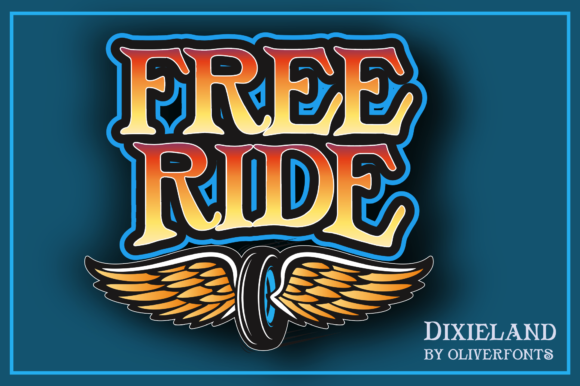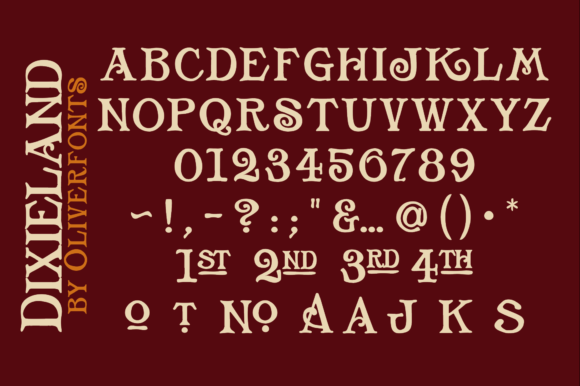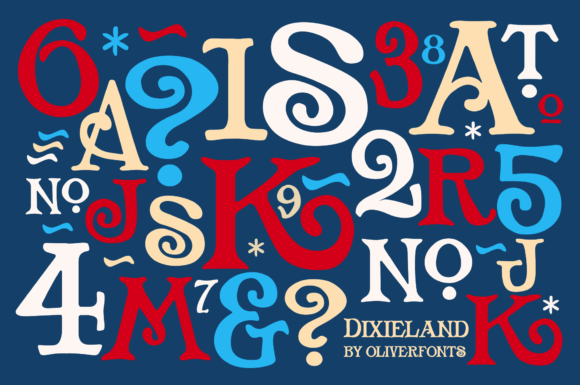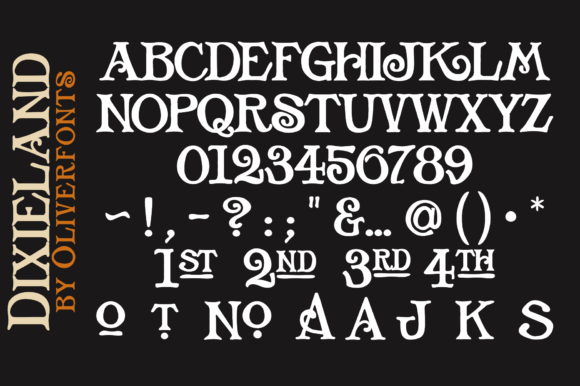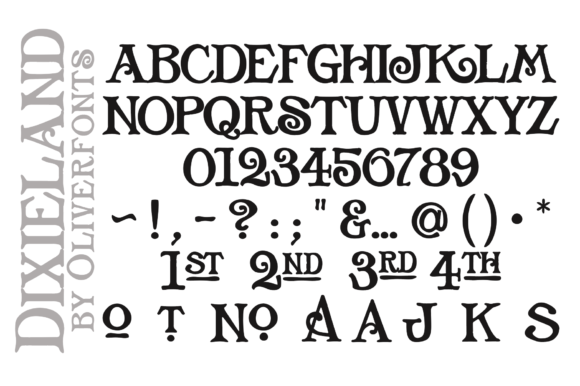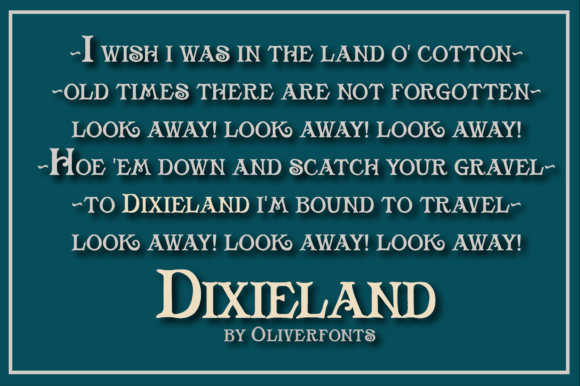
Dixieland Font: A Refreshing Throwback with Southern Charm
Are you looking for a font that adds a touch of southern charm and bold serif style to your design project? Look no further than the Dixieland Font. This loose, casual, and creative throwback font is perfect for designers and crafters seeking a refreshing style to make their work stand out.
What is Dixieland Font?
Dixieland Font is a unique and eye-catching typeface that embodies the spirit of the American South. Its bold serif style and casual, laid-back vibe make it an excellent choice for a wide range of design projects, from vintage-inspired posters and flyers to modern digital media and craft projects.
Key Features of Dixieland Font
- Loose and Casual Style: Dixieland Font has a relaxed, informal feel that’s perfect for creating a sense of nostalgia and warmth in your designs.
- Southern Charm: This font is infused with a touch of southern hospitality and charm, making it ideal for projects that require a dash of personality and character.
- Bold Serif Style: The bold serif style of Dixieland Font adds a level of sophistication and elegance to your designs, making it perfect for headlines, titles, and emphasis text.
- Creative and Versatile: Dixieland Font is a versatile typeface that can be used in a wide range of design projects, from digital media to print materials and craft projects.
Uses for Dixieland Font
Dixieland Font is a versatile typeface that can be used in a variety of design projects, including:
- Posters and Flyers: Create eye-catching posters and flyers with a vintage or southern-inspired theme.
- Digital Media: Use Dixieland Font in your digital media projects, such as social media graphics, blog posts, and website headers.
- Craft Projects: Add a touch of southern charm to your craft projects, such as scrapbooking, card making, and DIY signs.
- Branding and Packaging: Use Dixieland Font to create unique and memorable branding and packaging for your business or product.
Tips for Using Dixieland Font
Here are a few tips for getting the most out of Dixieland Font:
- Use it as a Headline Font: Dixieland Font is perfect for headlines and titles, where its bold serif style can make a big impact.
- Pair it with Other Fonts: Experiment with pairing Dixieland Font with other fonts to create a unique and interesting contrast.
- Experiment with Colors: Try using Dixieland Font in different colors to add an extra layer of personality and style to your designs.
Dixieland Font is a unique and versatile typeface that adds a touch of southern charm and bold serif style to any design project. With its loose, casual, and creative vibe, it’s perfect for designers and crafters seeking a refreshing style to make their work stand out. Whether you’re creating posters, digital media, or craft projects, Dixieland Font is a great choice for adding a dash of personality and character to your designs.
In conclusion, Dixieland Font is a fantastic addition to any designer’s or crafter’s toolkit. Its unique blend of southern charm, bold serif style, and creative vibe makes it perfect for a wide range of design projects. So why not give it a try and see how it can add a touch of personality and style to your work?